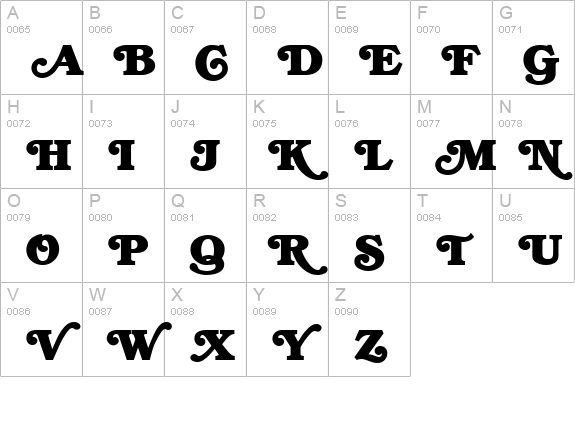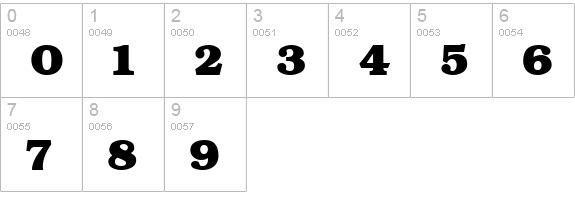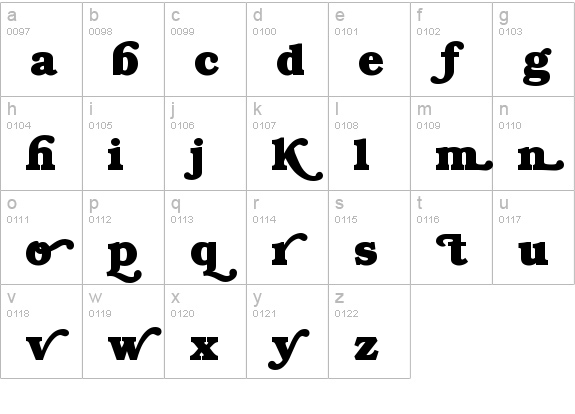
Camilla font is a charming and elegant typeface that exudes sophistication and style. Its delicate curves and graceful letterforms make it perfect for a wide range of design projects, from invitations to branding to editorial work. The timeless beauty of Camilla font will surely captivate any audience and elevate your designs to new heights. Best of all, Camilla font is completely free to download at FontsMarket.com. This means you can access this stunning typeface without any cost, allowing you to bring a touch of class to your projects without breaking the bank. Don't miss out on the opportunity to enhance your designs with the beauty of Camilla font - download it today and watch your creations come to life.